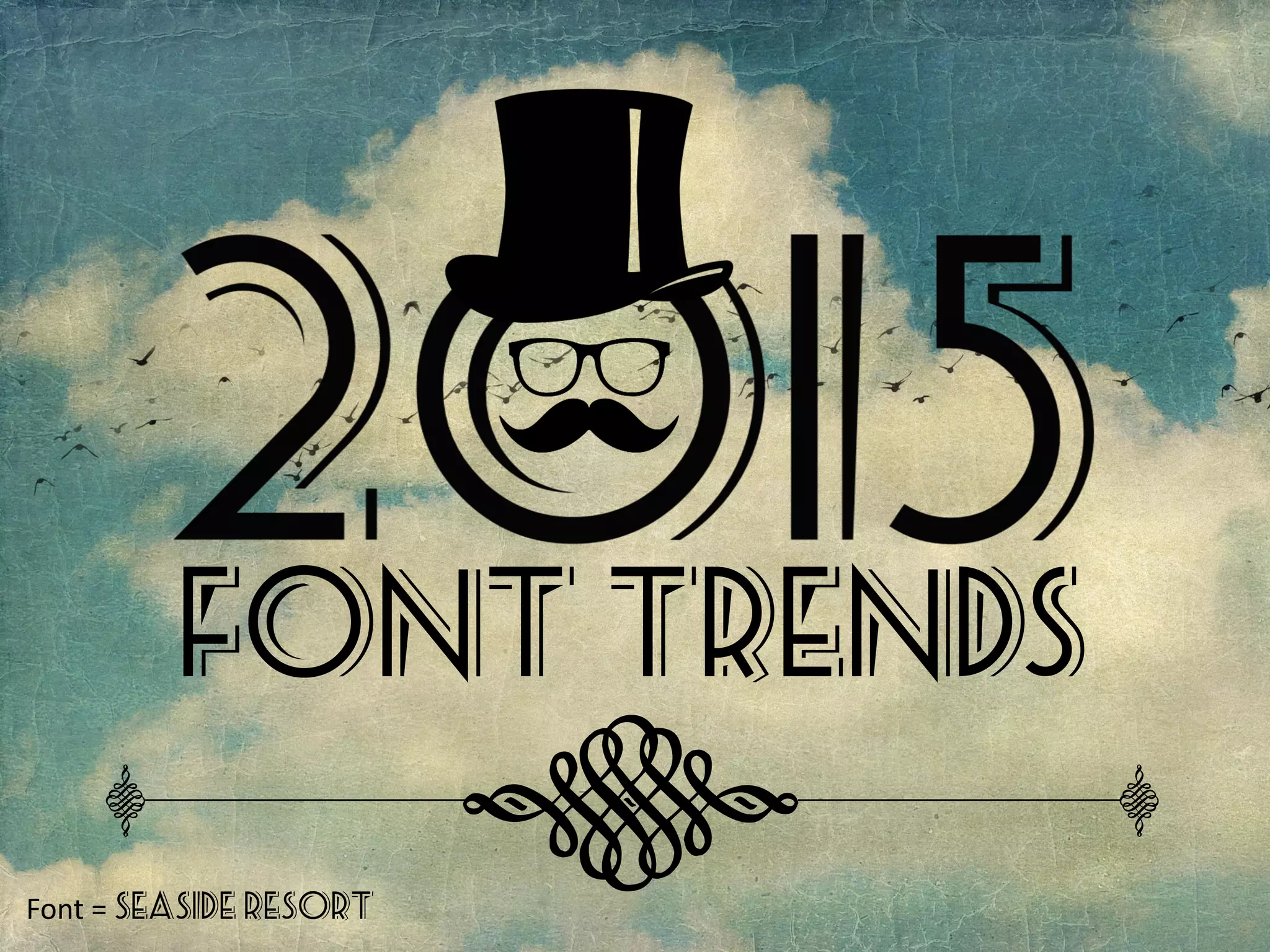
Goodbye boring old presentation fonts! Typography is one of the most important components of great PowerPoint design, and in 2015 rich typography will continue to be a dominating design element. Given that high quality fonts are more accessible and more affordable (often times FREE), be prepared to see some new, exciting and interesting trends in fonts within PowerPoint presentations. Interested in knowing more about presentation font trends in the upcoming year? Then, check out this presentation!